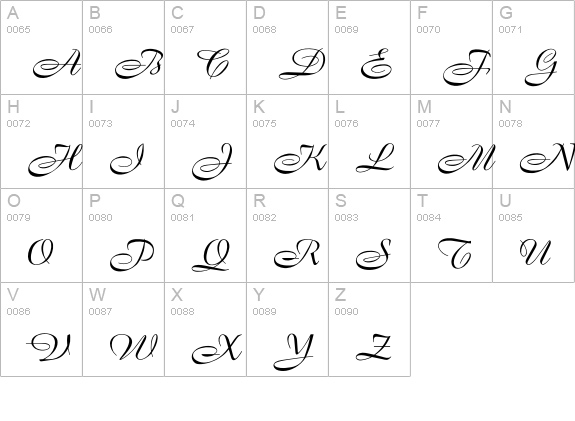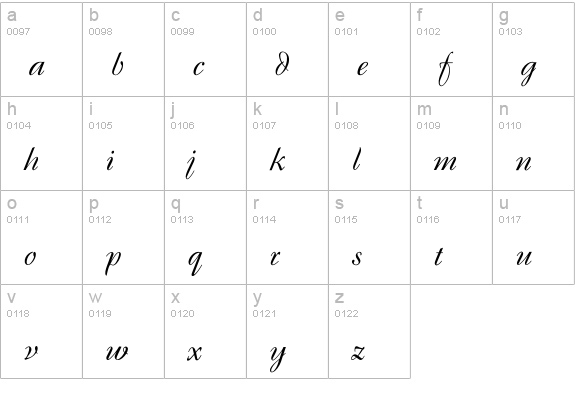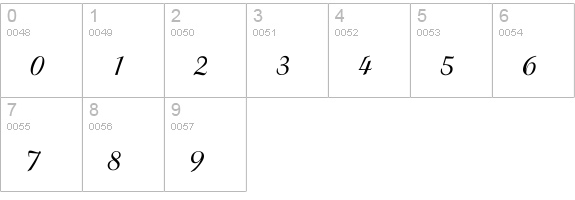
Koepenick Font Details
Koepenick font is a modern and stylish typeface that exudes elegance and sophistication. With its sleek lines and graceful curves, this font is perfect for adding a touch of class to any design project. Whether you're creating a logo, branding materials, or a stylish invitation, Koepenick font is sure to make a statement. What's even better is that Koepenick font is available for free download at FontsMarket.com. This means you can start using this beautiful font in your projects right away, without any cost involved. Don't miss out on the opportunity to elevate your designs with the timeless beauty of Koepenick font. Download it now and let your creativity soar!